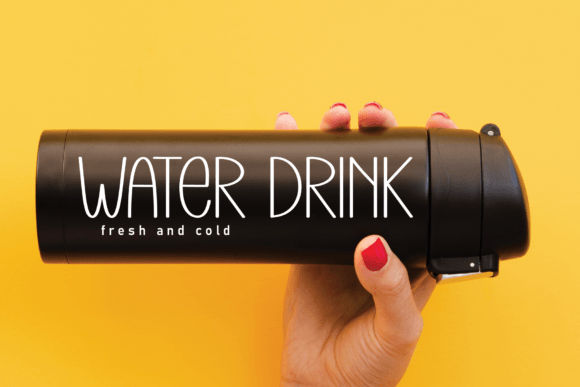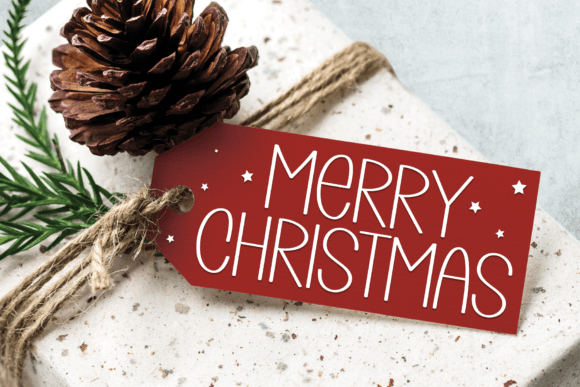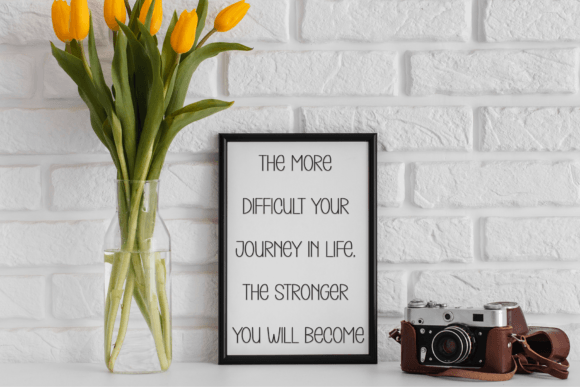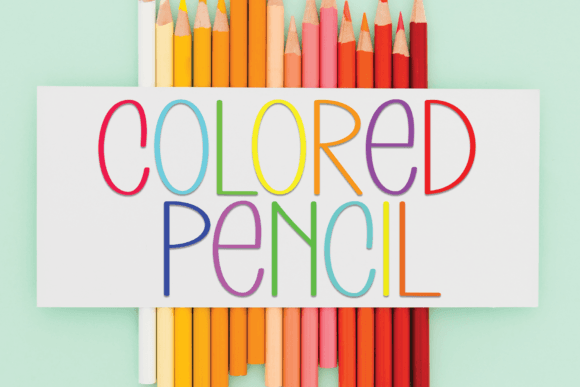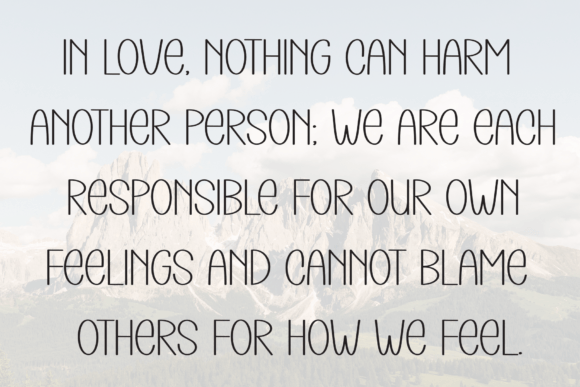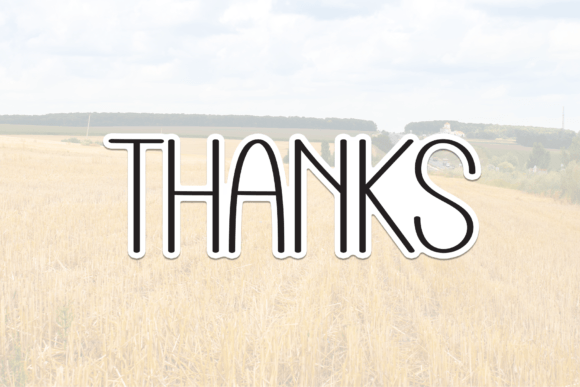
Introduction to Late Summer Font
Late Summer is a sweet and friendly handwritten display font.
Cute and fun, this font is ideal for writing wedding invitations, cards, or any other design that might need a fun touch .
Key Features of Late Summer Font